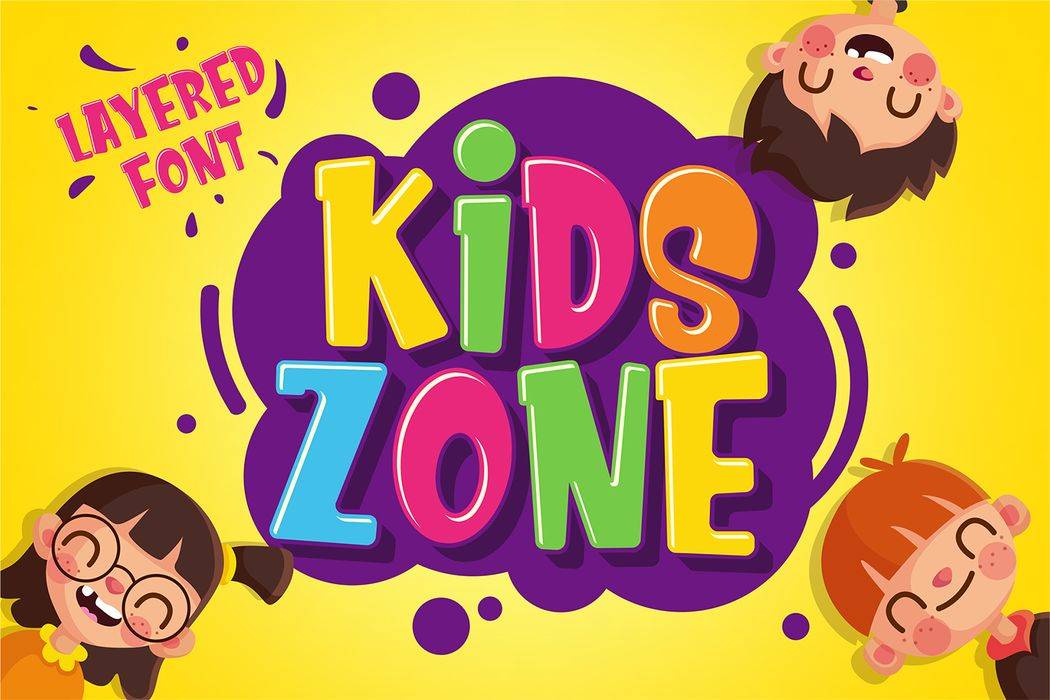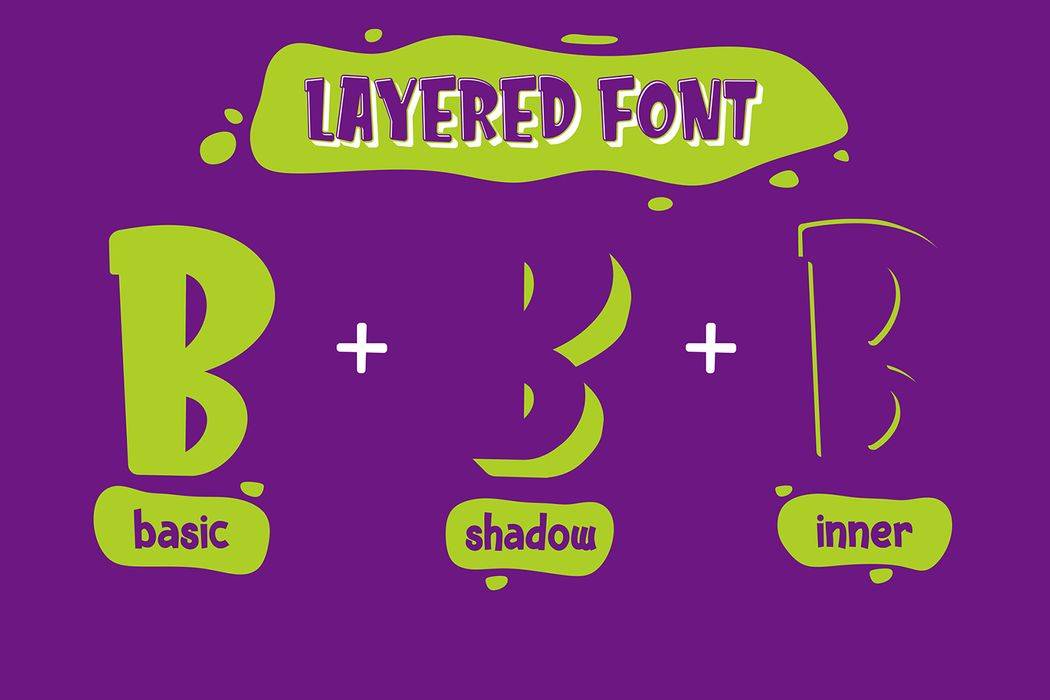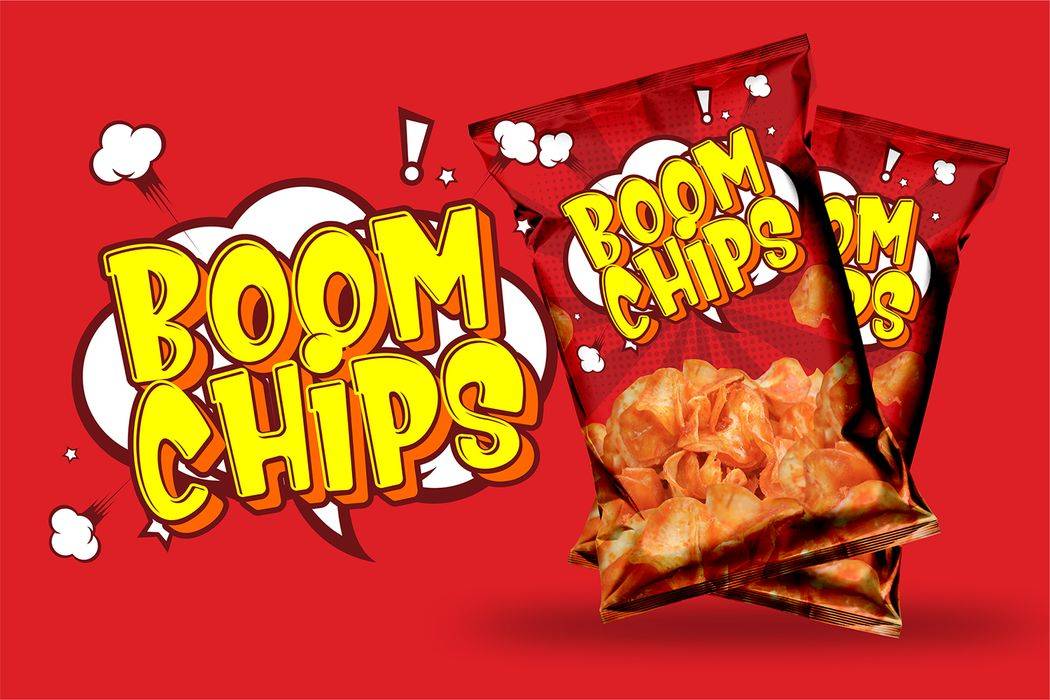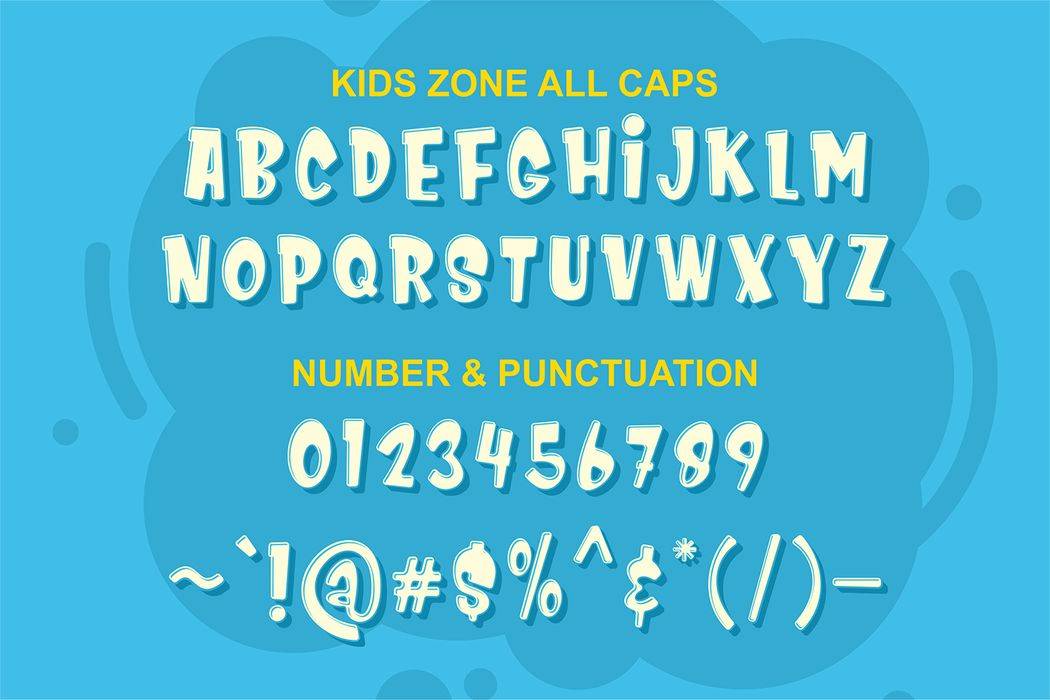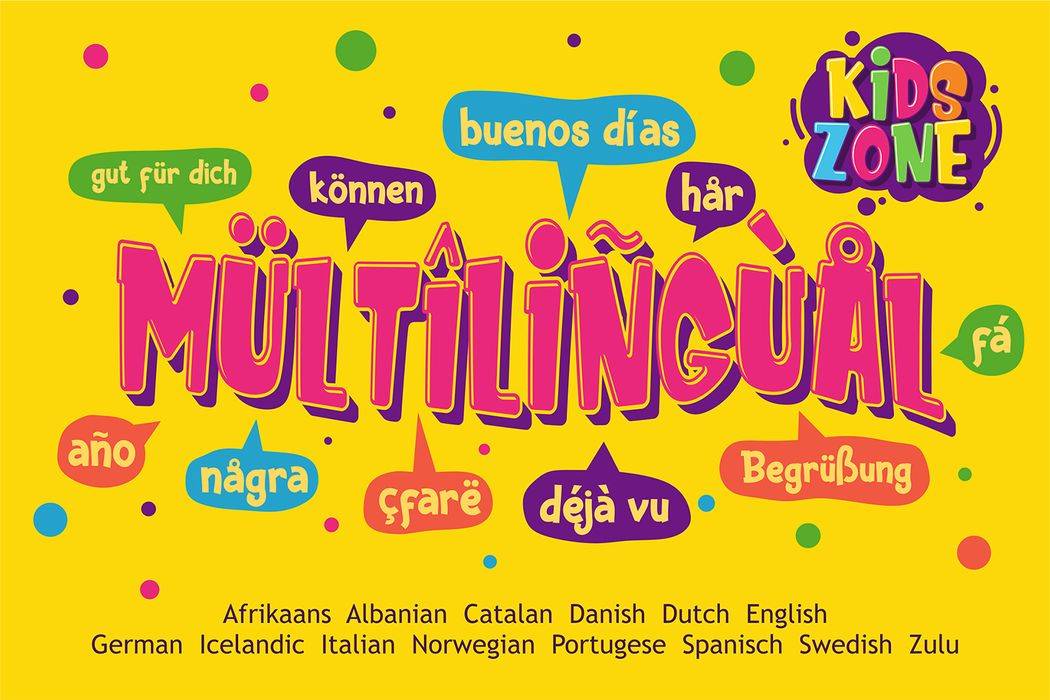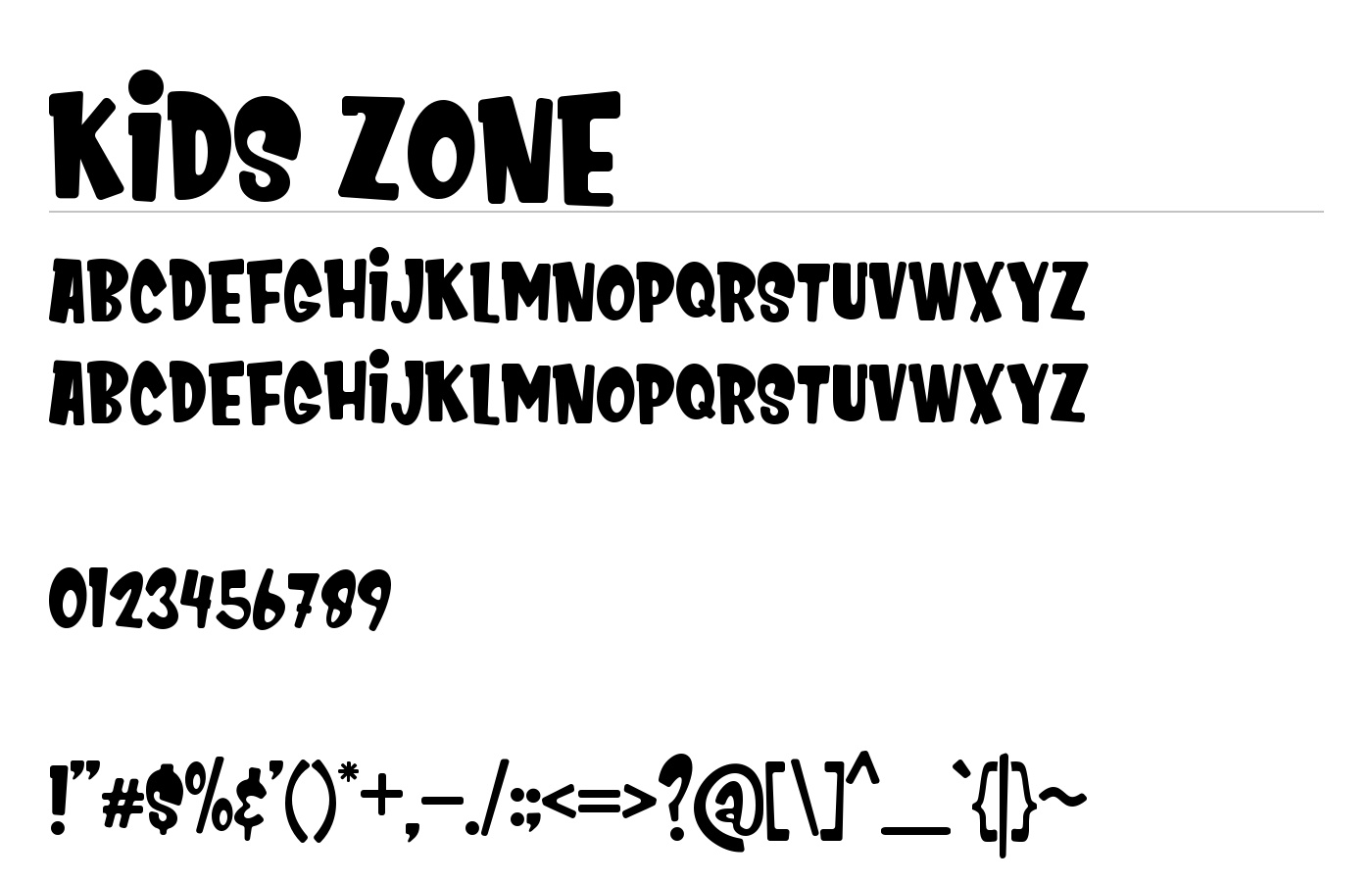
Kids Zone is a playful, bold sans serif font with quirky, irregular letter shapes that give it a fun and childlike personality. Its wide, chunky forms and slightly uneven lines make it perfect for children's books, educational materials, and youthful branding where a friendly, approachable vibe is needed. This font works well in headlines and logos that aim to capture attention with a lively, informal style.
Kids Zone Font
About Kids Zone Font